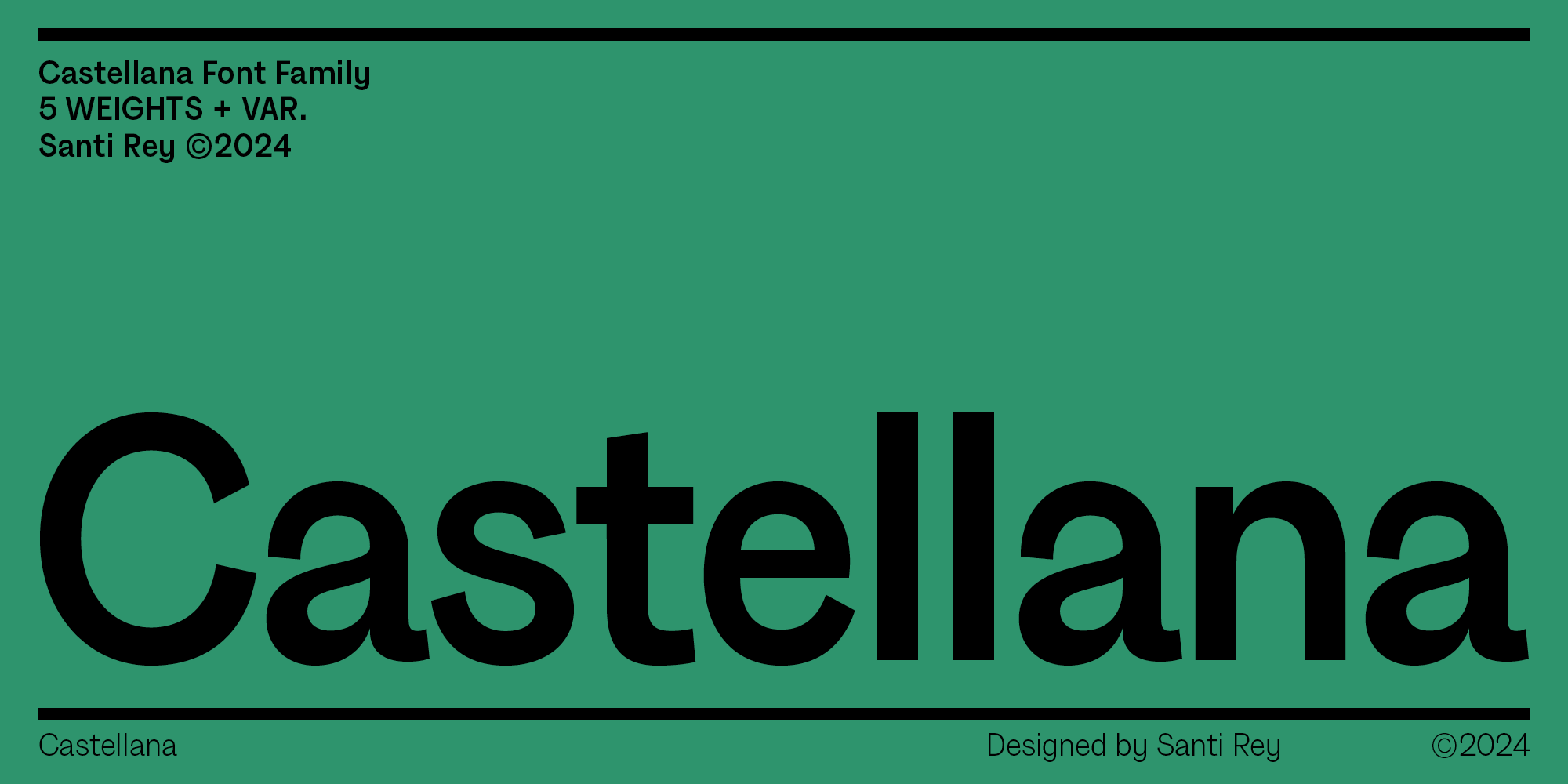
Castellana Font is perfect for Spanish heritage materials, Castilian cultural events, medieval castle exhibitions, noble family crests, traditional Spanish restaurant branding, Iberian wine labels, historic Madrid publications, royal court documents, Spanish literature covers, and regally distinguished marketing communications.
Castellana Font is exciting because it captures the noble dignity and ancient grandeur of Castilian heritage with its aristocratically refined letterforms that echo the architectural majesty of Spanish castles and embody the cultural sophistication that flourished in the courts of medieval Castile. Its regally distinguished character design reflects both the military strength that defended Spanish kingdoms and the intellectual refinement that created the Golden Age of Spanish literature, making it perfect for brands honoring Spanish heritage and aristocratic excellence.
Castellana Font family includes light, regular, medium, bold, and black weights, each with corresponding italic versions. The font family also features Spanish ornaments, Castilian ligatures, heraldic symbols, and royal decorative elements that enhance its noble aesthetic and Iberian cultural versatility.
This nobly distinguished typeface represents the perfect fusion of Spanish cultural heritage and aristocratic elegance. Castellana Font Free Download allows designers to explore its Castilian possibilities before making a commercial commitment. The font's ability to convey both historical authenticity and noble sophistication makes it ideal for cultural institutions, Spanish businesses, and heritage brands seeking to honor Iberian traditions with genuine respect and aristocratic dignity.
Whether you're developing Spanish cultural identities, creating Castilian heritage materials, or designing royal communications, Castellana Font brings an unmistakable sense of noble dignity and Spanish authenticity to every project. Its aristocratic character and Castilian heritage create powerful connections that resonate with audiences appreciating Spanish culture and aristocratic refinement.
The font's versatility excels in cultural and luxury environments where tradition and noble authenticity are paramount. Its distinguished character makes it particularly effective for Spanish restaurants, cultural centers, wine producers, and heritage organizations seeking to establish respectful relationships with Spanish communities and audiences who value authentic Iberian cultural expression and aristocratic elegance.
For designers working on projects requiring genuine Spanish heritage and noble appeal, Castellana Font provides an exceptional solution. Its regally distinguished presence and comprehensive Castilian elements offer the tools needed for creating truly authentic communications, while its aristocratic dignity ensures your designs honor the noble heritage and cultural sophistication that defines authentic Spanish traditions and Castilian excellence.